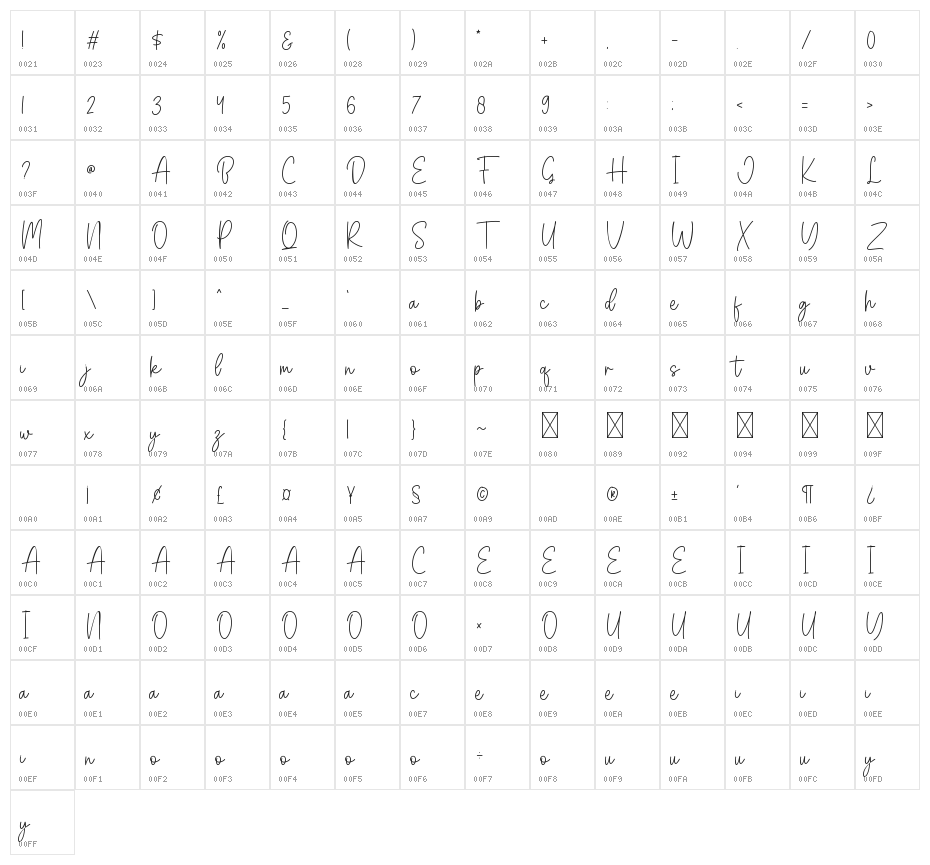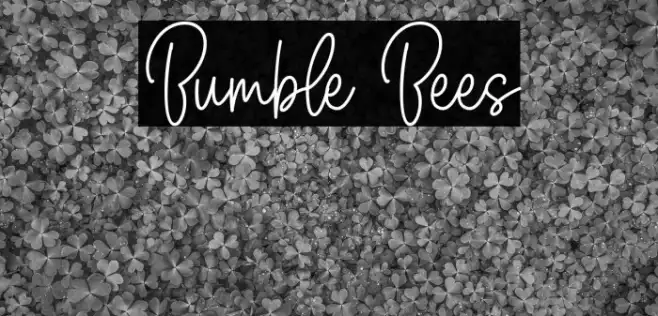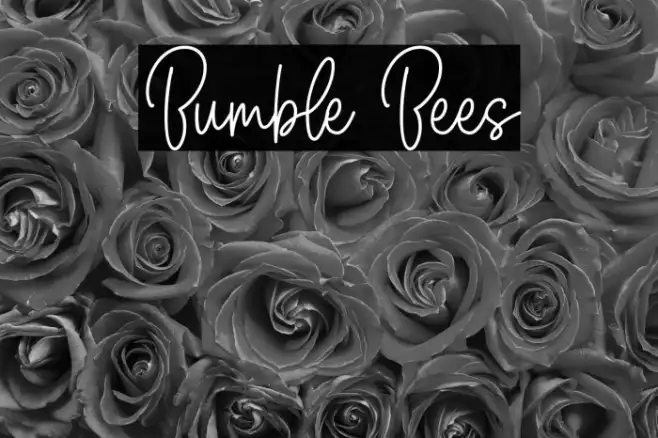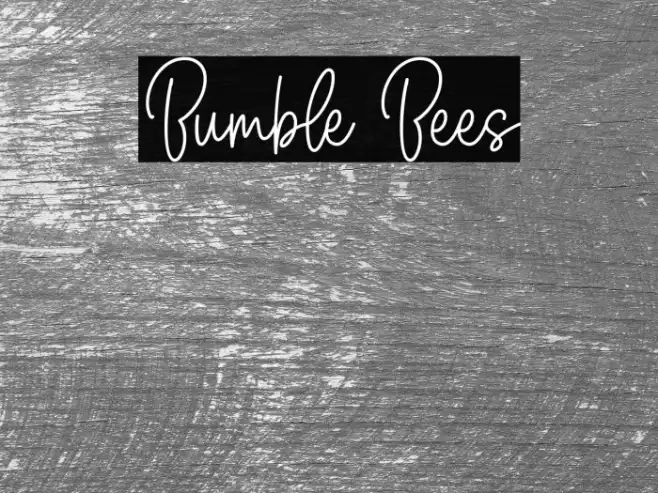
Bumble Bees Font
Bumble Bees Description
A playful, handwritten font with a casual and friendly appearance, featuring smooth curves and a slightly irregular baseline.
| Use Case | Logos, Invitations, Personal projects |
| Proposed Projects | Greeting cards, invitations, personal branding. |